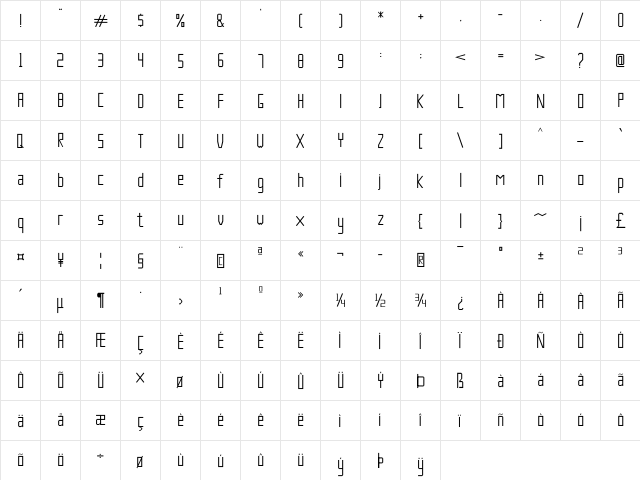
PERFECT Regular
Design Context for PERFECT Typeface
PERFECT is a composed and adaptable typeface that performs quietly and consistently across a wide range of design contexts.